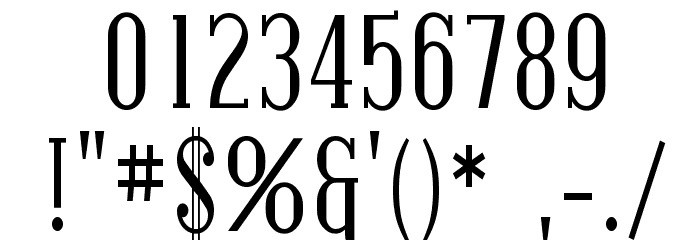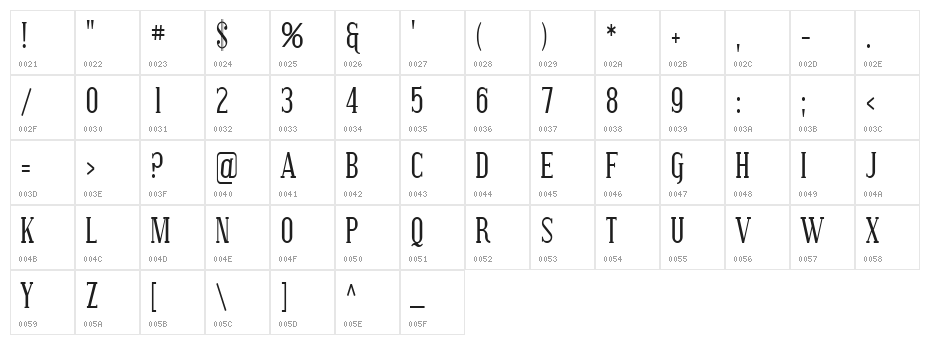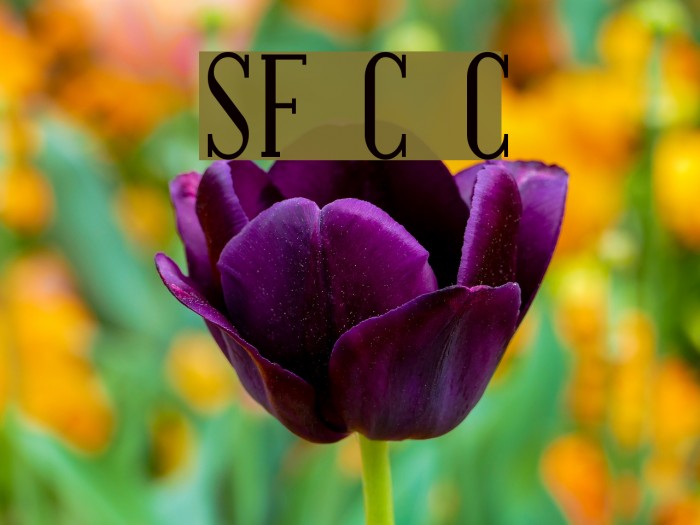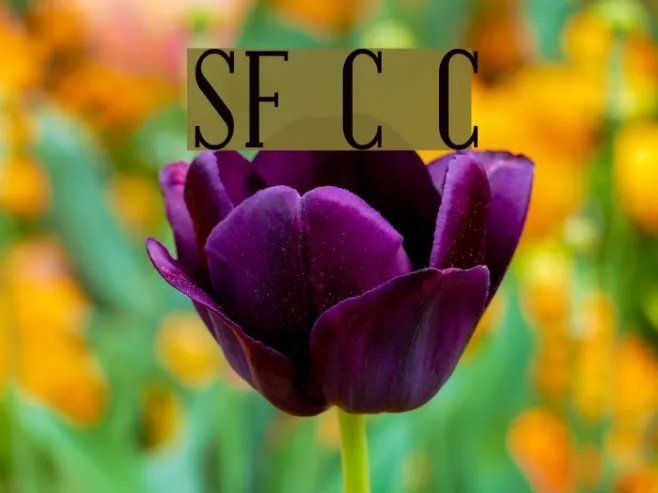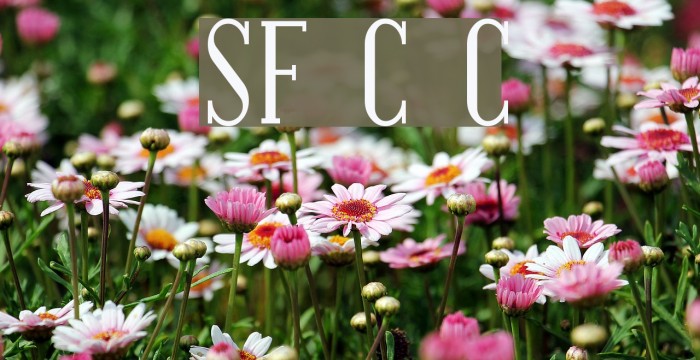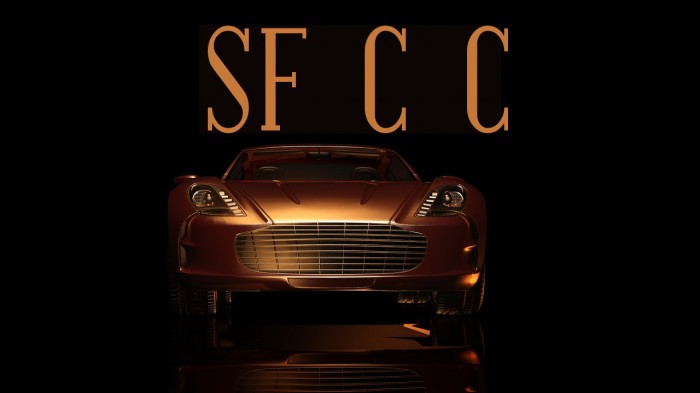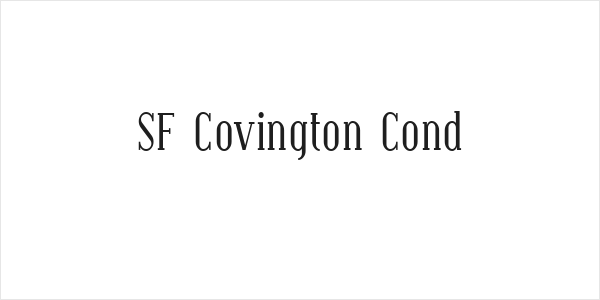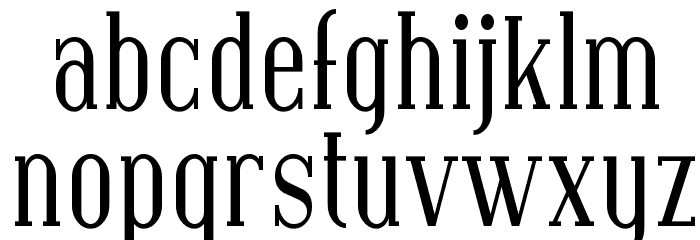
SF Covington Cond Font
SF Covington Cond Description
This font features a classic serif design with a condensed structure, offering a sophisticated and elegant appearance. The uppercase letters are tall and narrow, while the lowercase letters maintain a consistent height and width, providing a balanced look. The numerals are proportionate and align well with the overall style, ensuring readability. Special characters are distinct and well-integrated, adding versatility to the font. The strokes are moderately thick, giving it a medium contrast that enhances its legibility without compromising its stylish appeal.
| Proposed Projects | Ideal for editorial design, book covers, formal invitations, and branding projects that require a touch of elegance and sophistication. |